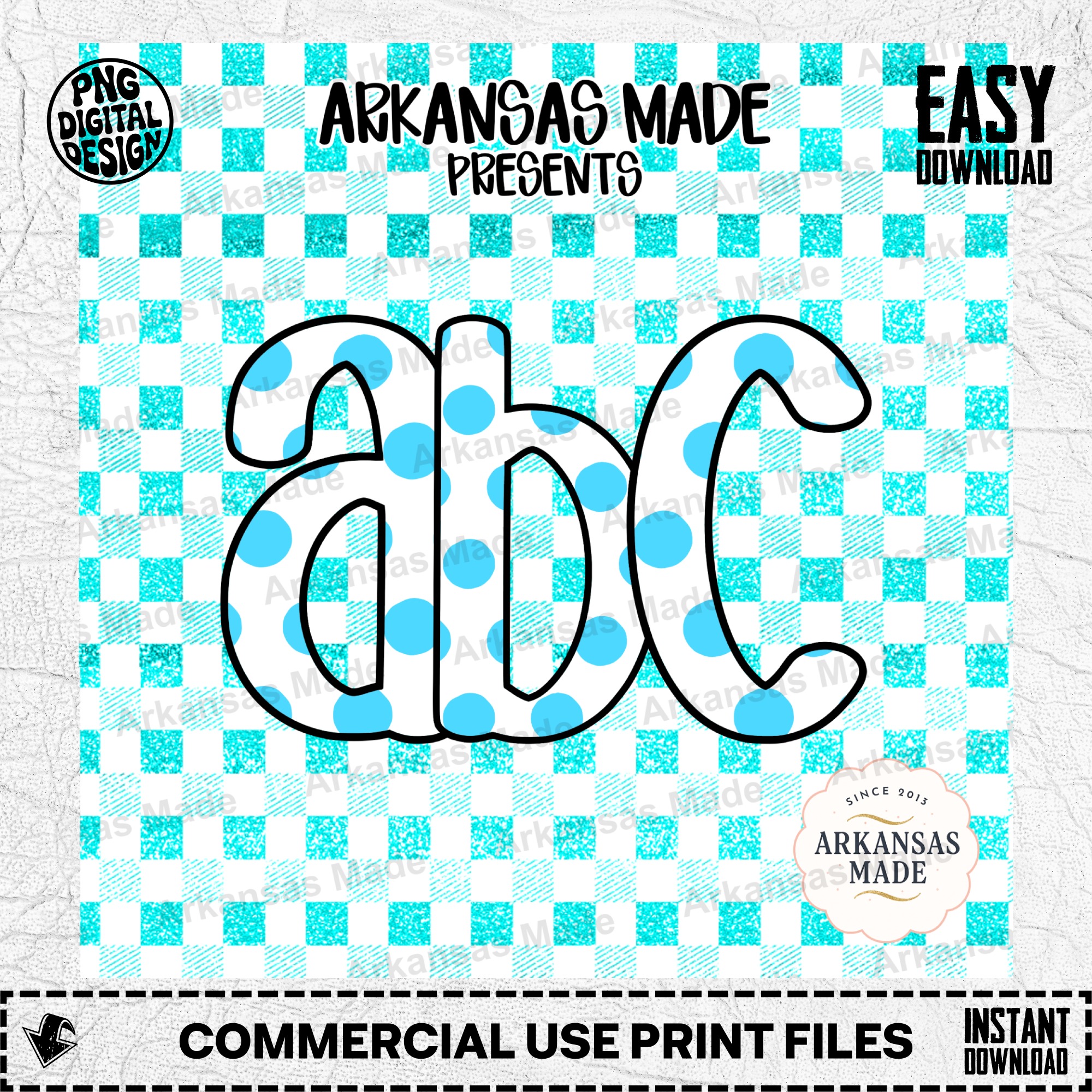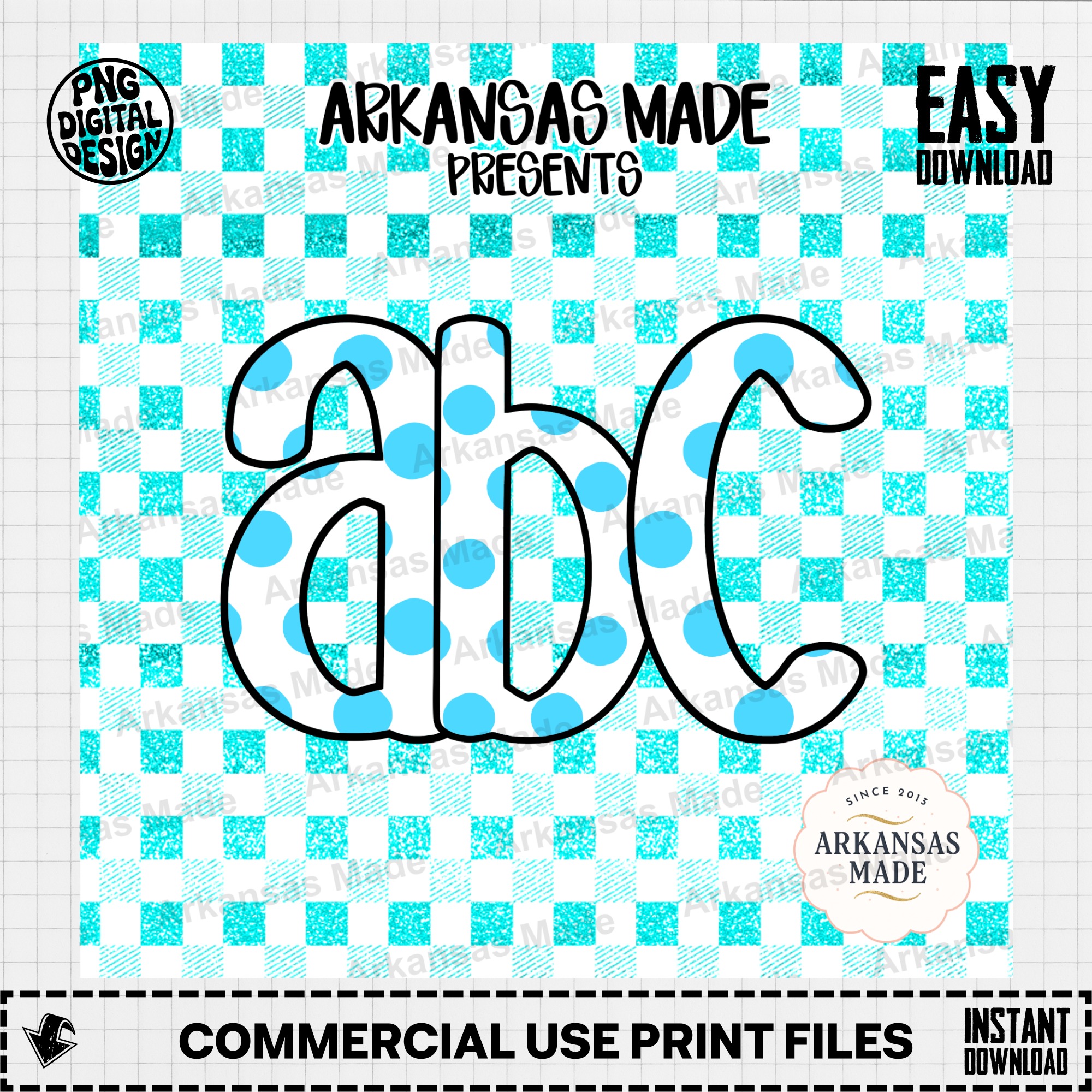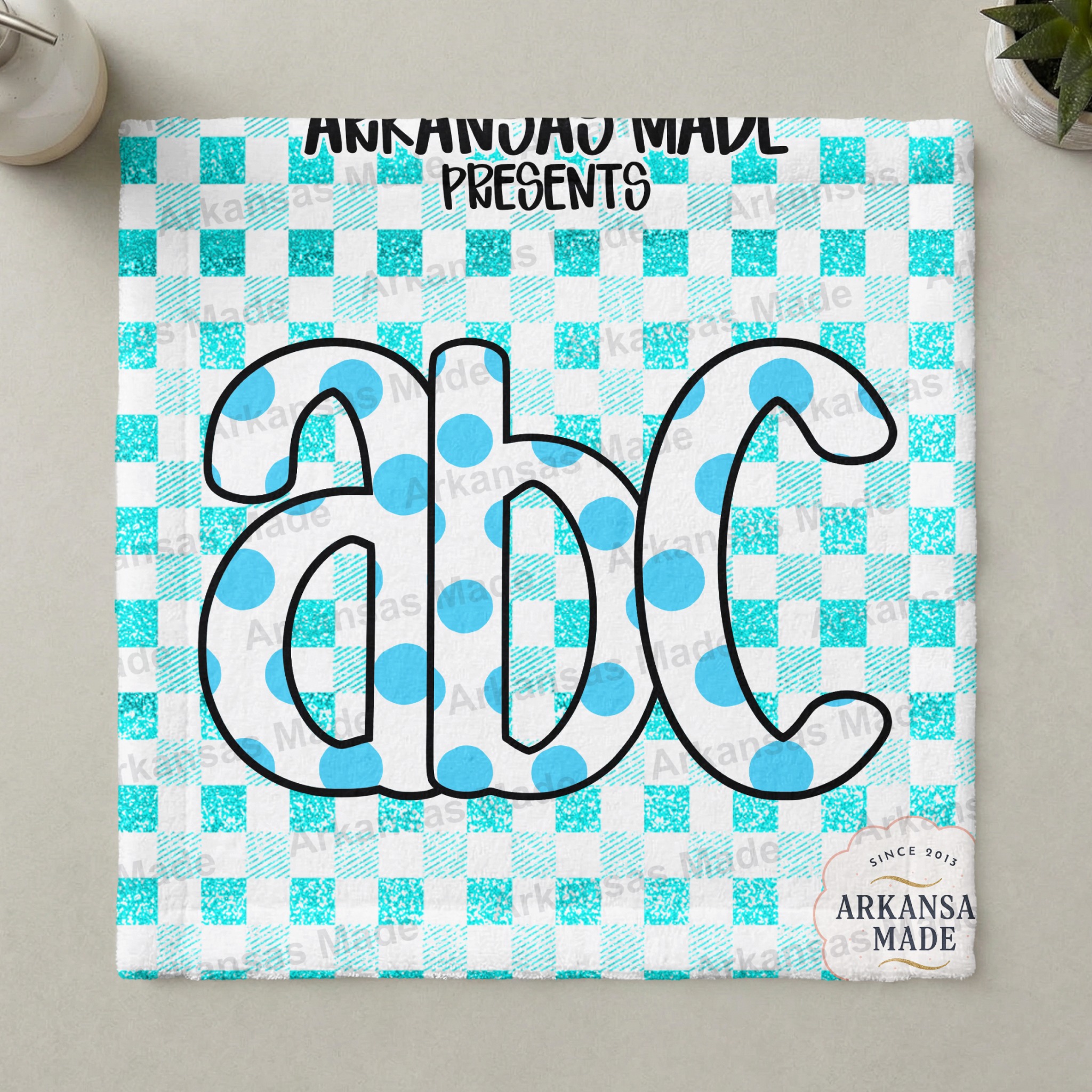
Dive into delightful creativity with this Blue Polka Dot Alphabet Digital Alpha Set! Perfect for glitter gingham letters PNG sublimation projects. Featuring a playful light blue polka dot pattern within a charming black outline, set against a vibrant faux glitter turquoise gingham background, these letters radiate cheerful energy. Ideal for crafters, teachers, and small business owners creating personalized gifts, nursery decor, classroom resources, or unique party invitations. Spark joy in your DIY projects!